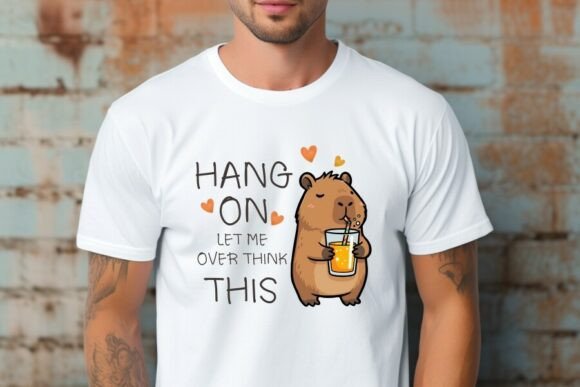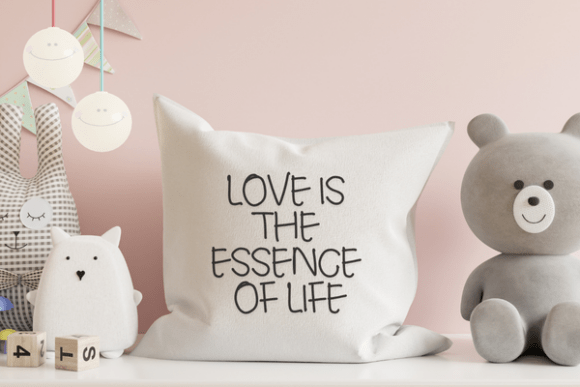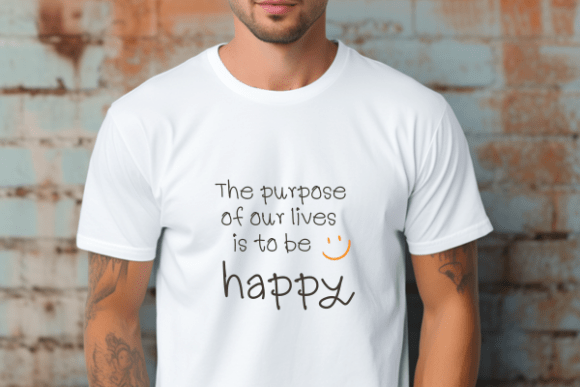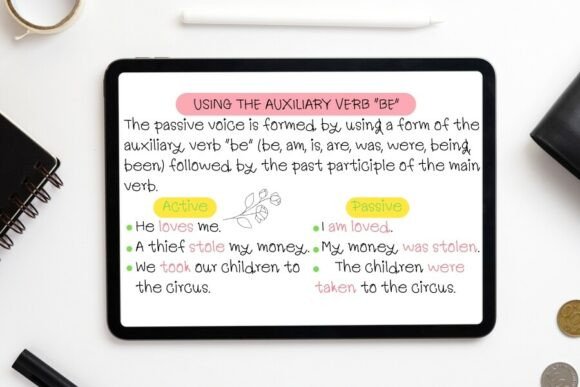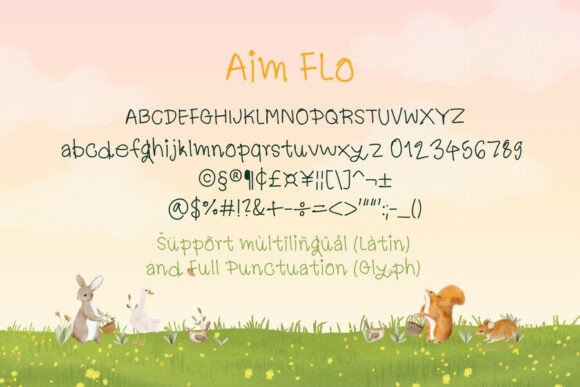
Aim Flo Font: The Playful and Friendly Handwritten Font for Your Creative Projects
Are you looking for a font that can add a touch of playfulness and friendliness to your creative projects? Look no further than Aim Flo Font! This delightful handwritten font is perfect for designers, crafters, and anyone looking to add a personal touch to their work. In this article, we’ll explore the features and benefits of Aim Flo Font, and show you how to make the most of this versatile and charming font.
What is Aim Flo Font?
Aim Flo Font is a playful, cute, and friendly handwritten font that is sure to bring a smile to your face. With its whimsical and informal design, this font is perfect for a wide range of creative projects, from greeting cards and invitations to posters, flyers, and social media graphics. Whether you’re a professional designer or a DIY crafter, Aim Flo Font is a great addition to your font collection.
Features of Aim Flo Font
Aim Flo Font has a number of features that make it a standout choice for your creative projects. Some of its key features include:
- Playful and friendly design: Aim Flo Font has a lighthearted and approachable design that is sure to appeal to a wide range of audiences.
- Handwritten style: This font has a personal, handwritten feel that adds a touch of warmth and personality to your work.
- Versatile: Aim Flo Font can be used for a wide range of creative projects, from digital graphics to print materials.
- Easy to read: Despite its playful design, Aim Flo Font is easy to read and understand, making it perfect for body text and headlines.
Benefits of Using Aim Flo Font
So why should you choose Aim Flo Font for your creative projects? Here are just a few benefits of using this delightful font:
- Adds a personal touch: Aim Flo Font has a personal, handwritten feel that adds a touch of warmth and personality to your work.
- Perfect for creative projects: This font is perfect for a wide range of creative projects, from art and craft projects to digital graphics and social media posts.
- Great for branding: Aim Flo Font can be used to create a consistent brand identity across a wide range of materials, from business cards to website headers.
Tips and Tricks for Using Aim Flo Font
Here are a few tips and tricks for getting the most out of Aim Flo Font:
- Use it for headlines and titles: Aim Flo Font is perfect for headlines and titles, where its playful design can really shine.
- Pair it with other fonts: Try pairing Aim Flo Font with other fonts to create a unique and interesting contrast.
- Experiment with colors: Aim Flo Font looks great in a wide range of colors, so don’t be afraid to experiment and find the perfect hue for your project.
Aim Flo Font is a playful, cute, and friendly handwritten font that is perfect for designers, crafters, and anyone looking to add a personal touch to their work. With its versatile design and easy-to-use format, this font is sure to become a favorite in your font collection. So why not give Aim Flo Font a try today and see the difference it can make in your creative projects?